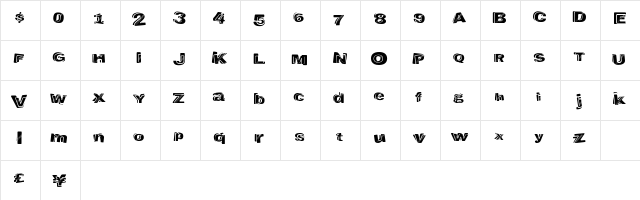
LiquorBank Regular Font Preview
LiquorBank Regular
LiquorBank Regular Font Details
| Foundry | Xerographer Fonts |
| Designer | Xerographer Fonts Max Infeld |
Design Context for LiquorBank Typeface
LiquorBank is a composed and adaptable typeface that performs quietly and consistently across a wide range of design contexts.